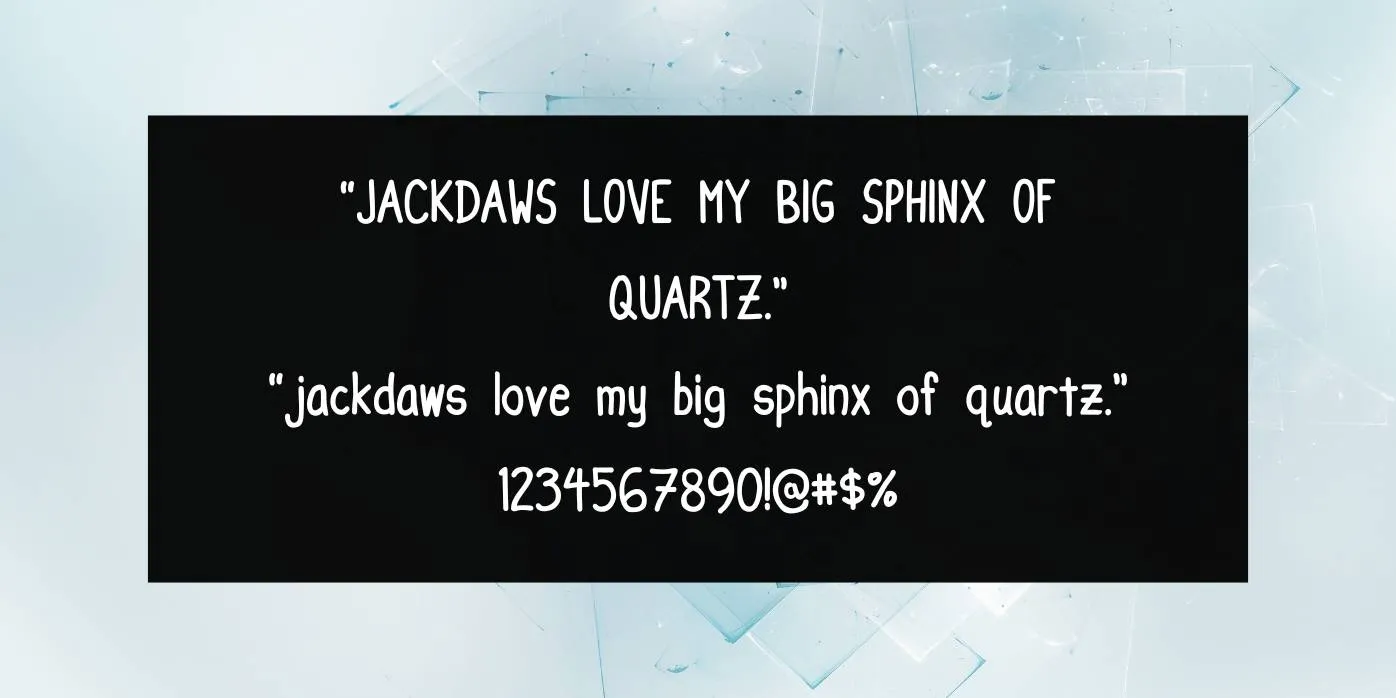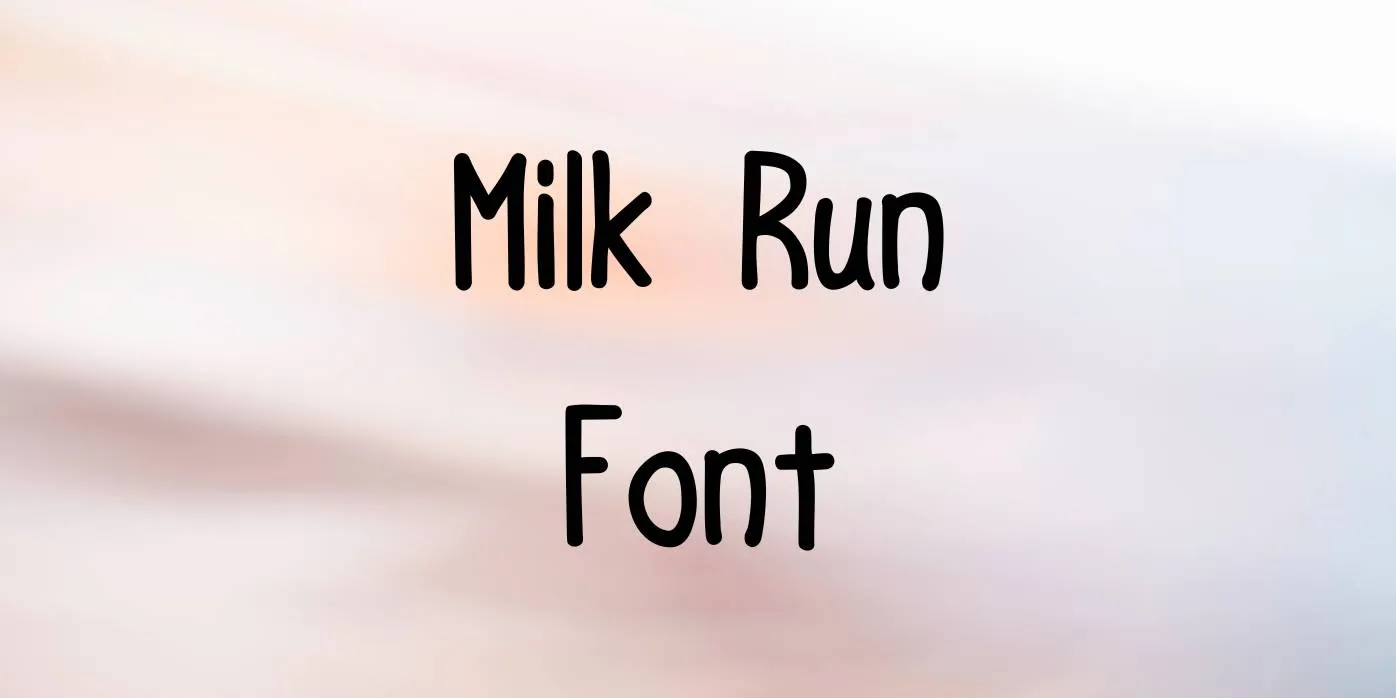
Milk Run Font
You are going to read about the Milk Run Font. This texture is a script type of font. Font Monkey is the designer of this typeface. The characters of this texture are amazing because they are thin, classic, and attractive.
The glyphs for this typeface are unique and are 107 in number. This typeface was developed in 2004. The online generator tool for this typeface has some stunning and awesome features. You can convert your simple text into the text of this font.